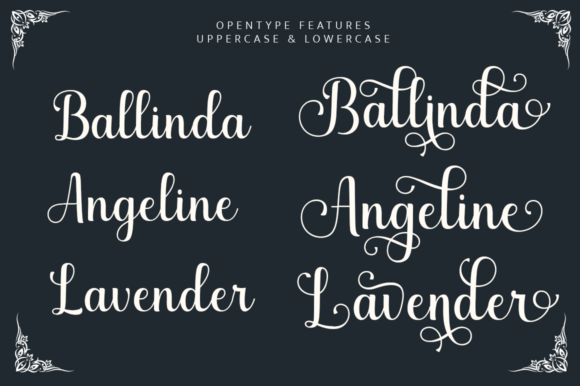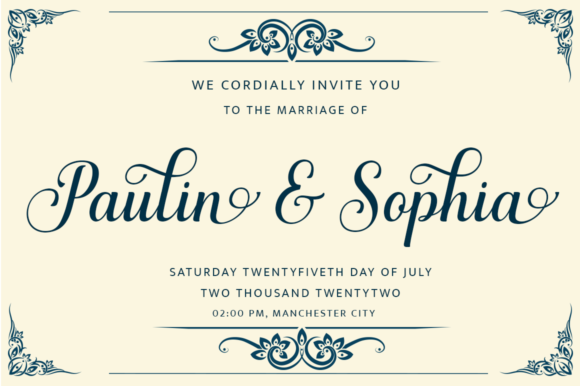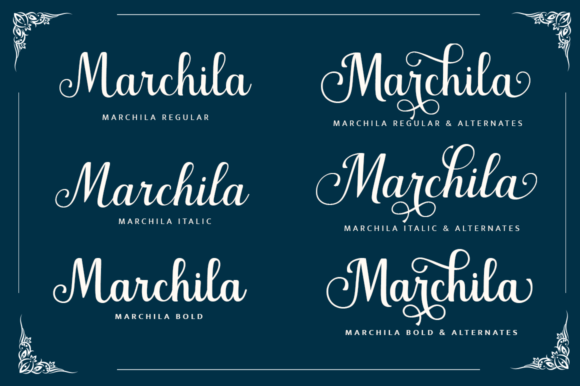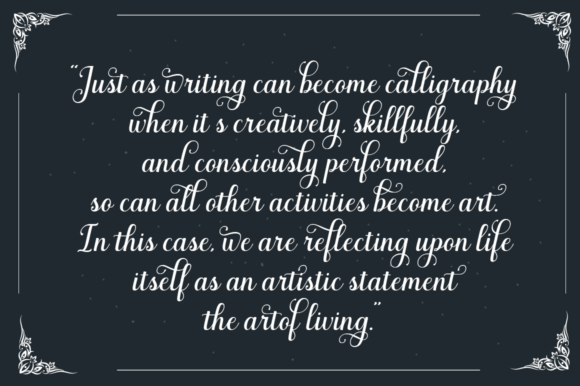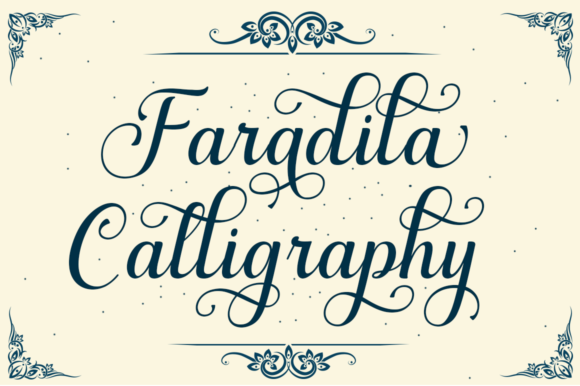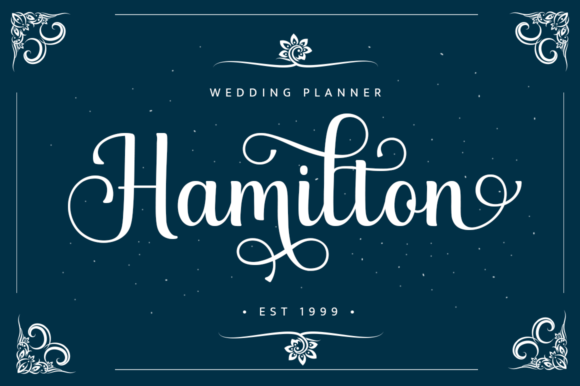
Introduction to Marchila Font
Do you remember that moment when you finally nailed a design concept that brought your creative vision to life? It’s a feeling of accomplishment and satisfaction that keeps us coming back for more. As designers, we’re constantly on the lookout for that perfect design resource to elevate our projects. And, trust us, you’re in luck because we’re about to introduce you to the Marchila Font – a game-changer for your next creative project.
The Marchila Font is a stunning script font that exudes elegance and sophistication. Its delicate strokes and refined lines make it an ideal choice for designs that require a touch of class and refinement. Whether you’re working on a branding project, a wedding invitation, or a blog post, this font is sure to make a lasting impression. And the best part? It’s PUA encoded, allowing you to access all its amazing glyphs and ligatures with ease.
As a high-quality design resource, the Marchila Font is a valuable addition to any designer’s toolkit. With its transparent background and free download option, you can seamlessly integrate it into your projects without any hassle. So, get ready to elevate your designs with the Marchila Font and experience the thrill of creating something truly beautiful.
Key Features of Marchila Font
- Unique and modern font style with a transparent background, perfect for backgrounds and overlays
- Perfect for use in graphic design, web design, and digital art projects
Honest Review: Marchila Font
I recently came across the Marchila Font and was impressed by its clean and modern design. As a designer, I’m always on the lookout for high-quality resources to enhance my creative projects. The Marchila Font fits the bill perfectly, offering a beautiful and elegant script style that’s perfect for a variety of applications.
- ✨ Elegant and modern design style
- ✨ Beautiful script font
Overall, I’m impressed with the Marchila Font and would definitely recommend it to designers looking for a high-quality, free download resource. While it may have some limitations, its clean design and transparent background make it a valuable addition to any design arsenal.
The Marchila Font is a versatile design resource that can be used for a variety of creative projects, including logos, business cards, and social media graphics. It’s also a great choice for presentations and documents, where a high-quality font can make a big impact.
Tips for Getting the Most Out of Marchila Font
Q: Does the Marchila Font have a transparent background, and how can I use it for digital designs?
The Marchila Font has a transparent background, making it ideal for digital designs, such as logos, icons, and graphics. You can use the font in combination with a transparent background to create stunning visual effects and enhance your design’s overall appearance.